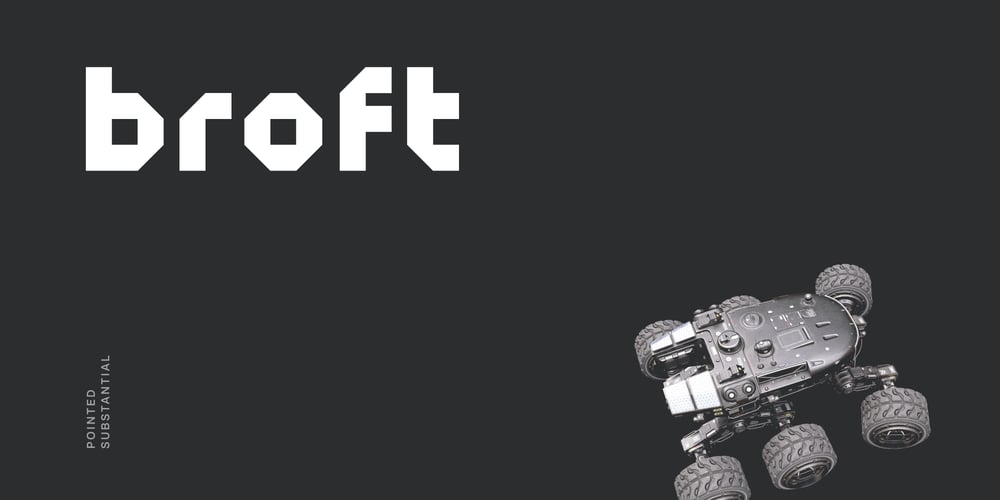
Broft
Broft font
Broft Font Family was designed by Andrew Seah and published by Baqoos. Broft contains 3 styles and family package options. Broft is a pointed substantial linear sans apt for headline, editorial, branding, packaging, printed materials and typographic applications. 200+ glyphs with ligatures and fractions provided in opentype .otf and .woff format.